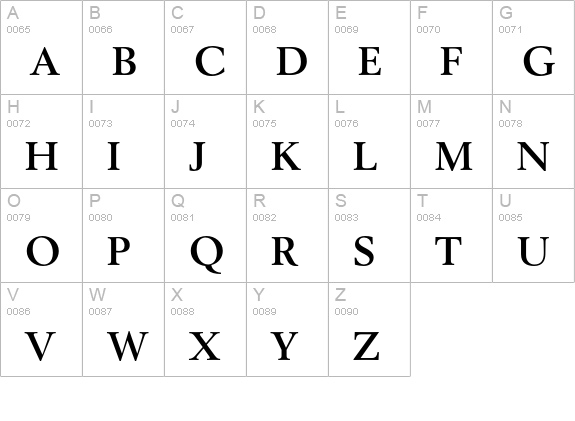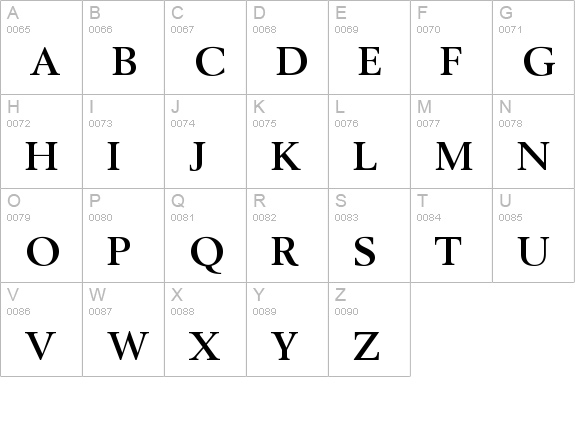
Berling Bold is a strong, high-contrast variant in the Berling typeface family \xE2\x80\x94 well suited to headlines, attention-grabbing titles, and strong calls-to-action.
Berling Bold is a classic and versatile font that exudes sophistication and elegance. Its strong and bold letterforms make it perfect for headlines, titles, and any design project that requires a touch of authority. The clean lines and balanced proportions of Berling Bold make it highly readable, making it a great choice for both print and digital applications. What sets Berling Bold apart is not just its timeless design, but also the fact that it is available for free download at FontsMarket.com. This means that you can easily access this high-quality font without any cost, making it a valuable addition to your font library. Whether you are a designer looking for a reliable typeface or a business owner in need of a professional font for your branding, Berling Bold offers the perfect solution with its combination of style, clarity, and accessibility. Download Berling Bold today and elevate your design projects with this exceptional font.